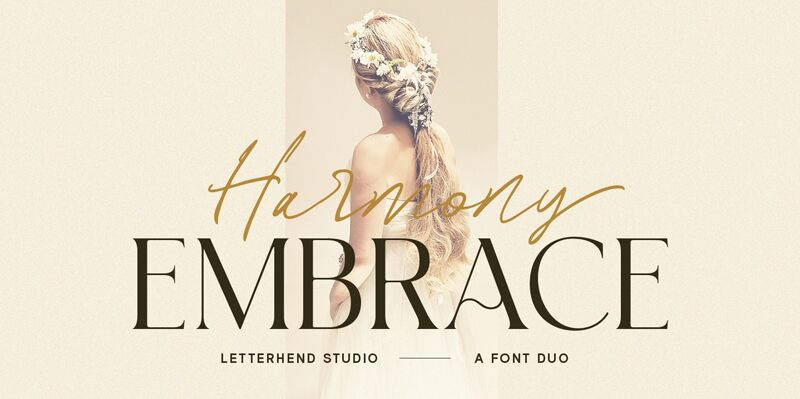
Harmony Embrace Script font by Letterhend Studio captures the essence of elegance with a distinctive handwritten style and light, flowing strokes. This font effortlessly blends sophistication and a casual charm, making it perfect for adding a personal touch to your designs. Its delicate, sweeping curves bring warmth and intimacy to any project.
Ideal for wedding invitations, logos, branding materials, or social media graphics, Harmony Embrace Script enhances the visual appeal with its graceful presence. Whether you're designing for business or pleasure, this free font offers endless possibilities to elevate your creative work.